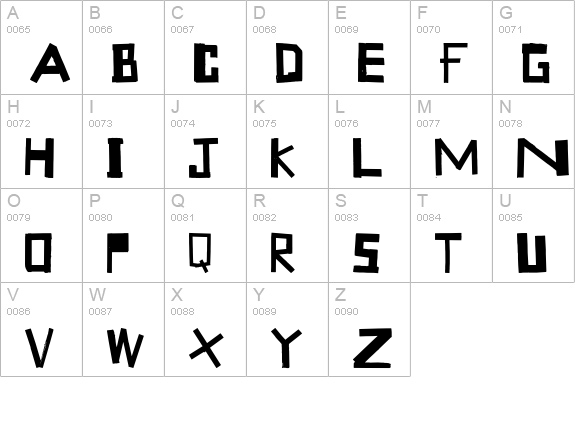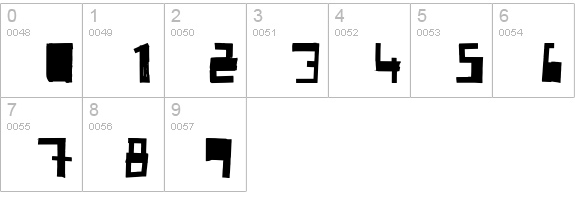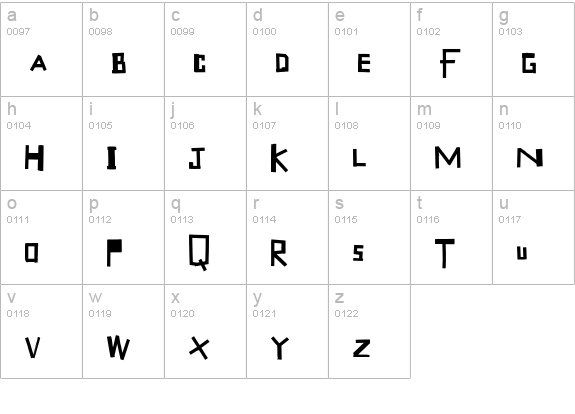
Introducing TapeType, a stunning and versatile font that is sure to make a bold statement in any design project. With its unique, hand-drawn style, TapeType captures the essence of creativity and individuality. Whether you're designing a poster, logo, or website, this font will add a touch of personality and charm. What sets TapeType apart is not only its eye-catching aesthetics but also its accessibility. This font is available for free, allowing designers of all skill levels to incorporate it into their work without breaking the bank. From professional designers to DIY enthusiasts, everyone can enjoy the benefits of TapeType. To make it even more convenient, TapeType can be easily downloaded at FontsMarket.com, a trusted source for high-quality fonts. By simply visiting the website, you can access this amazing font and start using it in your designs right away. The process is seamless and hassle-free, ensuring that you can focus on what truly matters - creating stunning visuals that leave a lasting impact. TapeType is not just a font, it's a tool that empowers creativity and unleashes imagination. With its versatility and free availability, it opens up a world of possibilities for designers everywhere. So why wait? Download TapeType today and let your designs speak volumes with its captivating style and distinctive appeal.